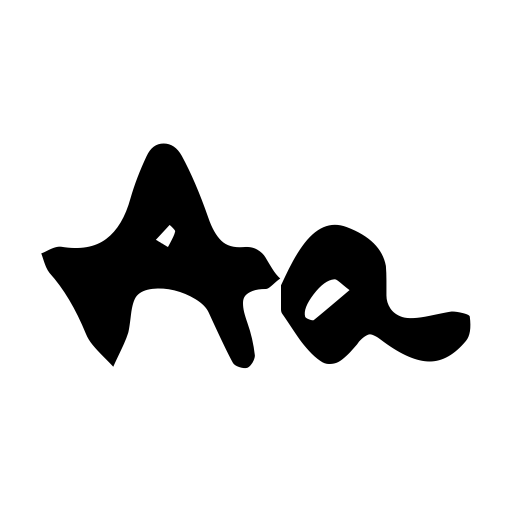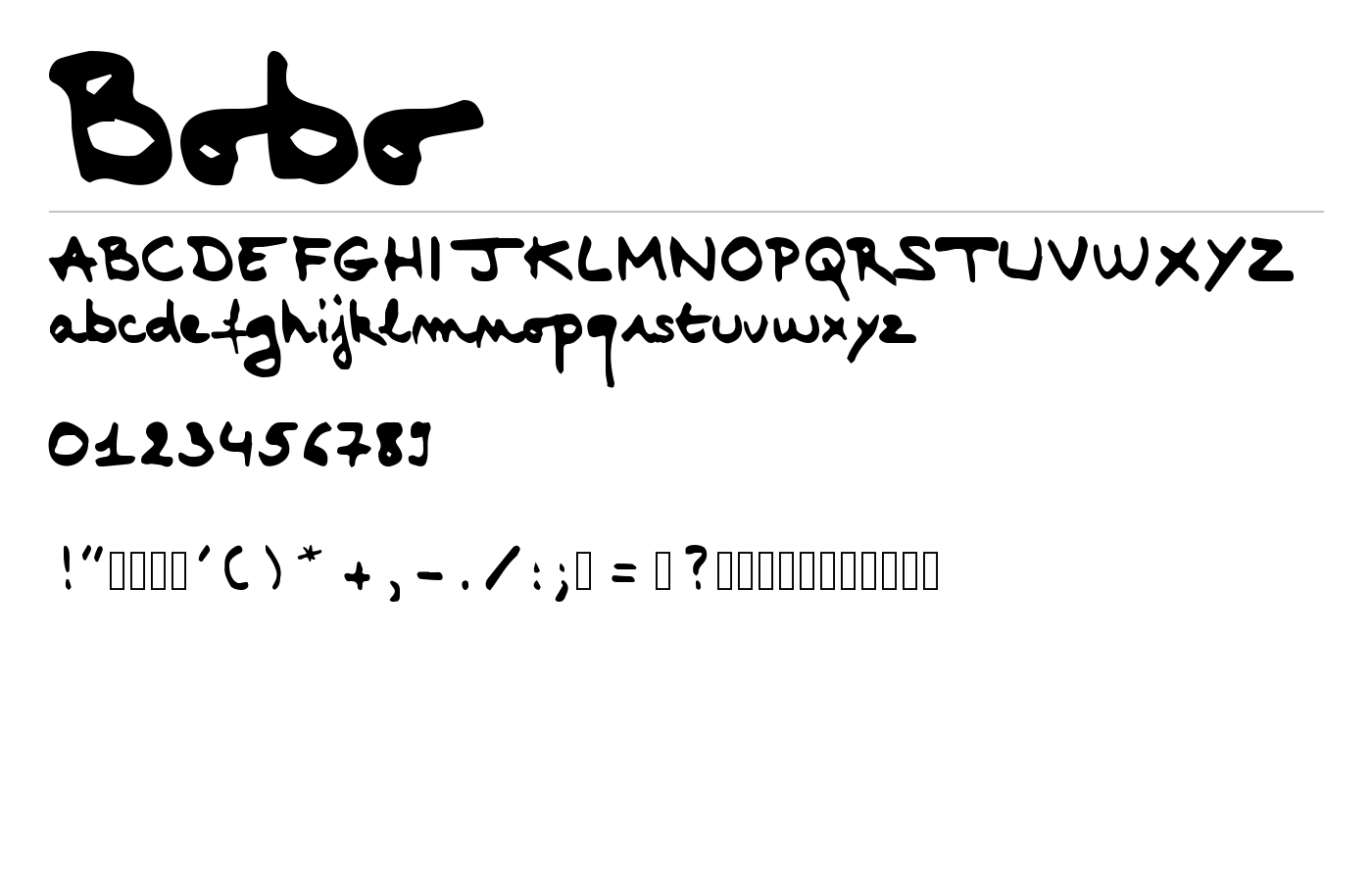
Bobo Font is a playful, hand-drawn sans serif typeface with irregular shapes and a casual, almost childlike feel. Its uneven strokes and quirky letterforms make it ideal for creative, informal designs such as posters, logos, and children's materials where a fun and approachable personality is desired. This font works best in expressive, artistic contexts rather than formal or text-heavy applications.
Bobo Font
About Bobo Font